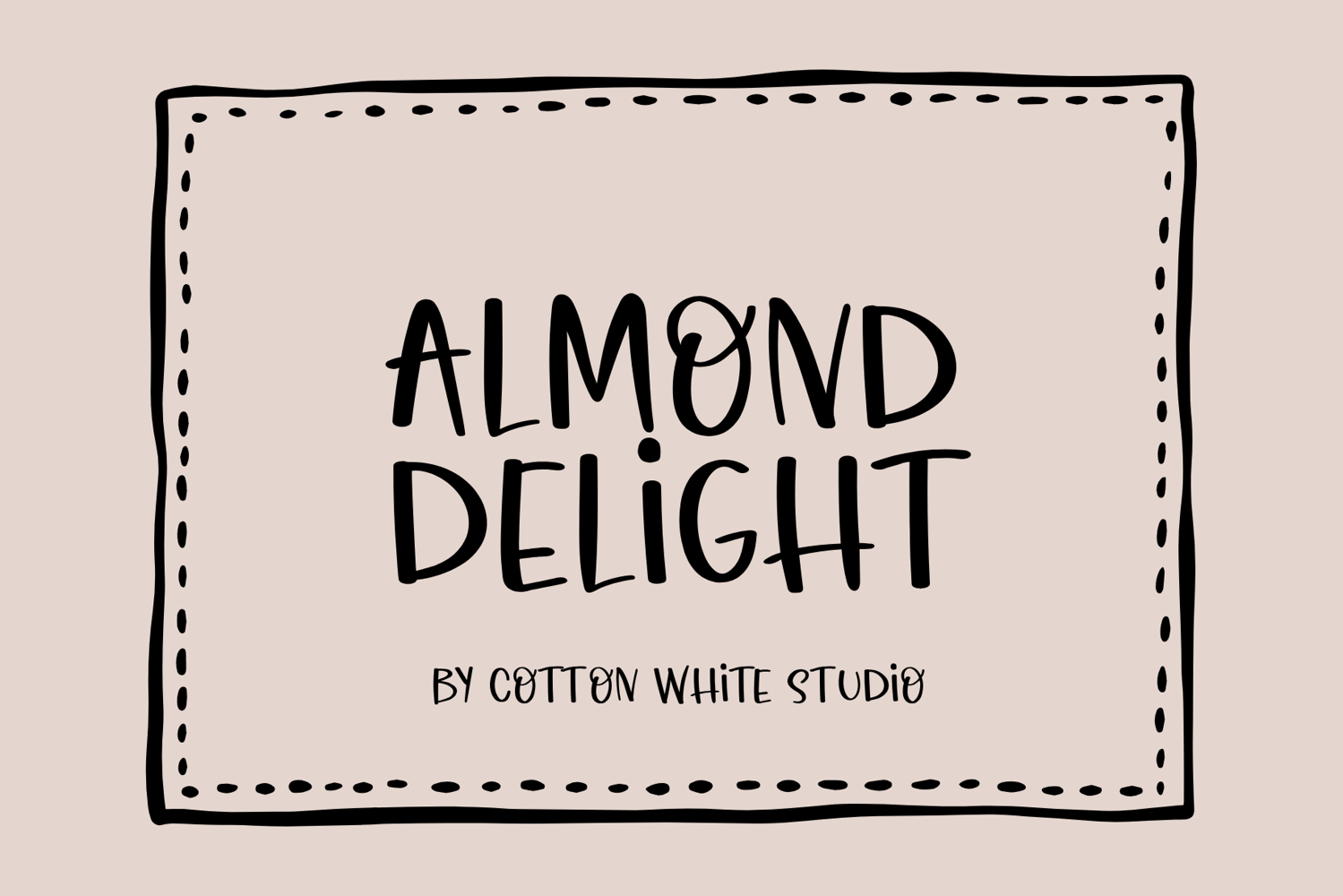
Almond Delight
Introducing Almond Delight, a playful handwritten display font with a charming hand-drawn personality. Featuring whimsical details, and an authentic handmade feel, this font is perfect for designs that need a fun and friendly touch. Whether you're creating mugs, t-shirts, signs, stickers, classroom resources, invitations, children's products, or Cricut projects, Almond Delight adds warmth, character, and creativity to every design.
Almond Delight